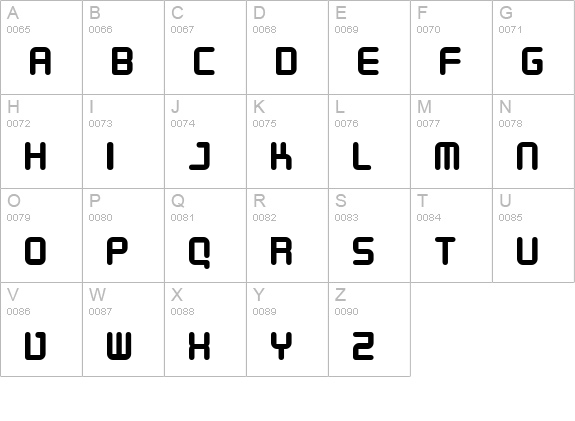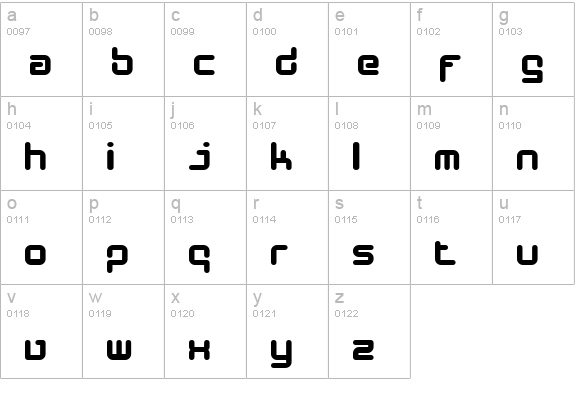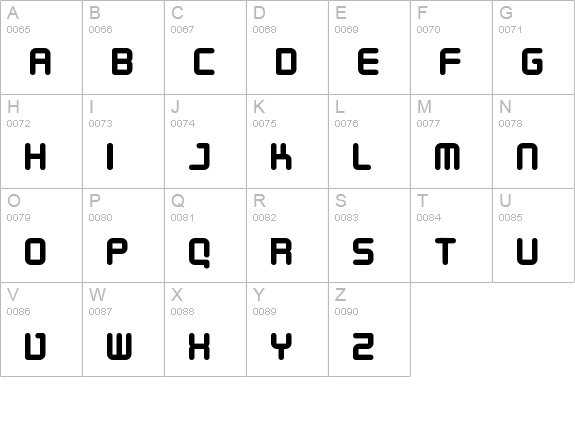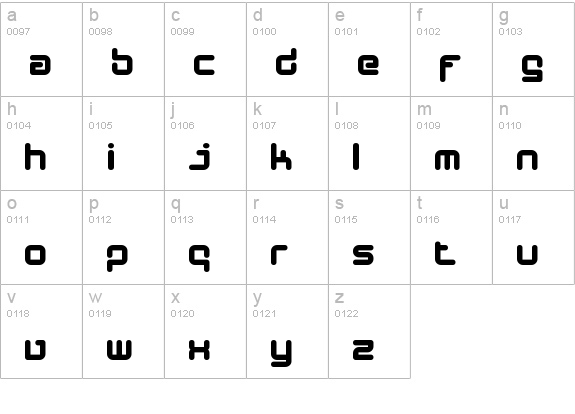
Introducing Designer Block font, a captivating typeface that effortlessly combines modern sophistication with a touch of artistic flair. This stunning font is sure to captivate and inspire, making it the perfect choice for any design project that requires a bold and contemporary look. Designed with meticulous attention to detail, Designer Block font features clean lines and sharp edges, creating a visually striking display. Its unique block-like structure adds a sense of strength and stability, while its sleek curves and stylish letterforms bring a sense of elegance and creativity to any design. Whether you're working on a logo, a poster, a website, or any other creative endeavor, Designer Block font is a versatile choice that will instantly elevate your work to new heights. Its versatility allows it to seamlessly adapt to any style or theme, making it suitable for both corporate and artistic projects. But the best part? Designer Block font is absolutely free! That's right, this incredible font is freely available to download at FontsMarket.com. Now you can effortlessly enhance your designs without breaking the bank. With just a few clicks, you can access this remarkable font and unlock a world of design possibilities. So don't let creative limitations hold you back. Embrace the power of Designer Block font and let your imagination run wild. Download it today at FontsMarket.com and discover the endless possibilities that await you. Elevate your design game with this remarkable font and watch as your creations come to life with style and sophistication.